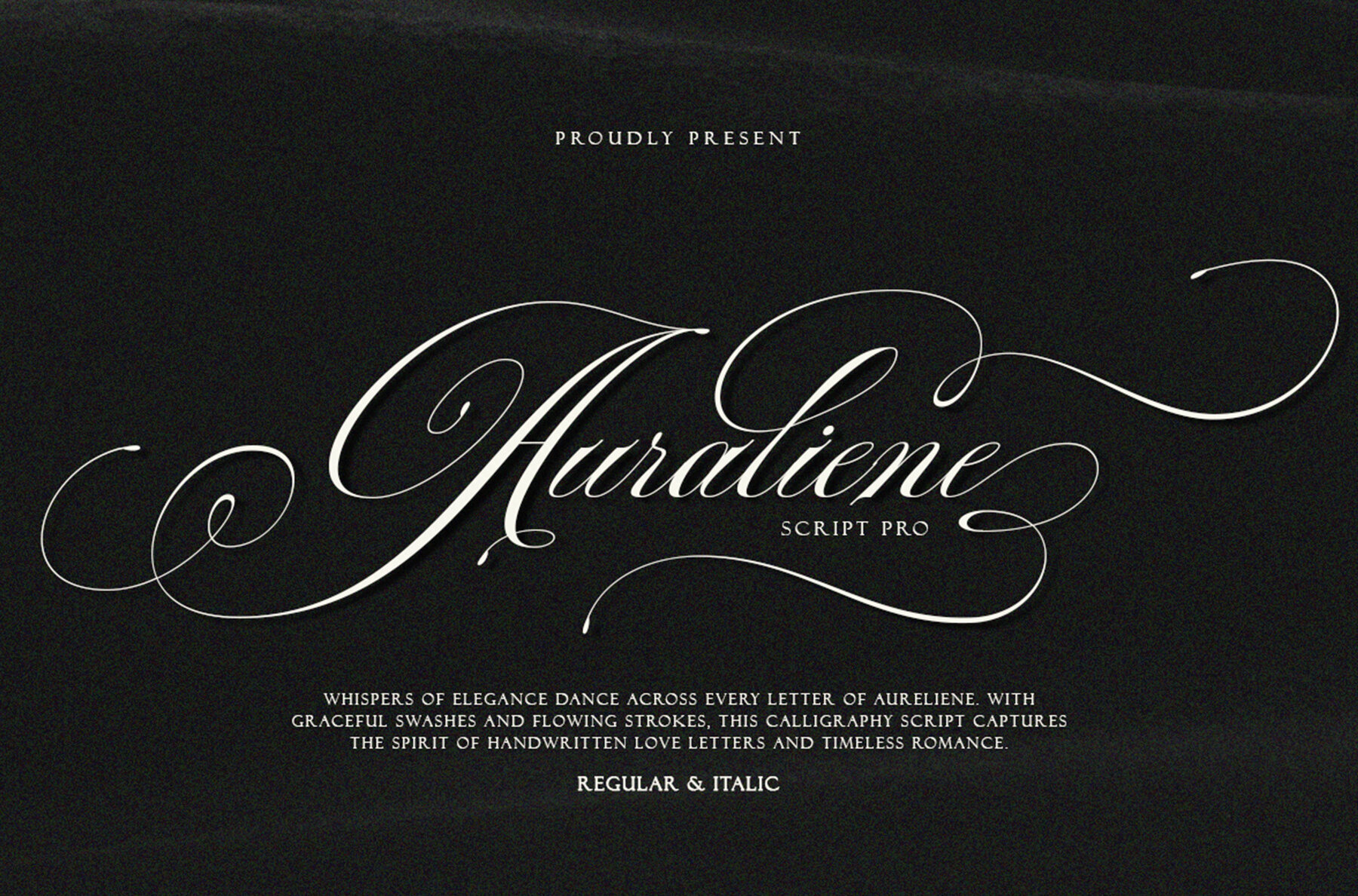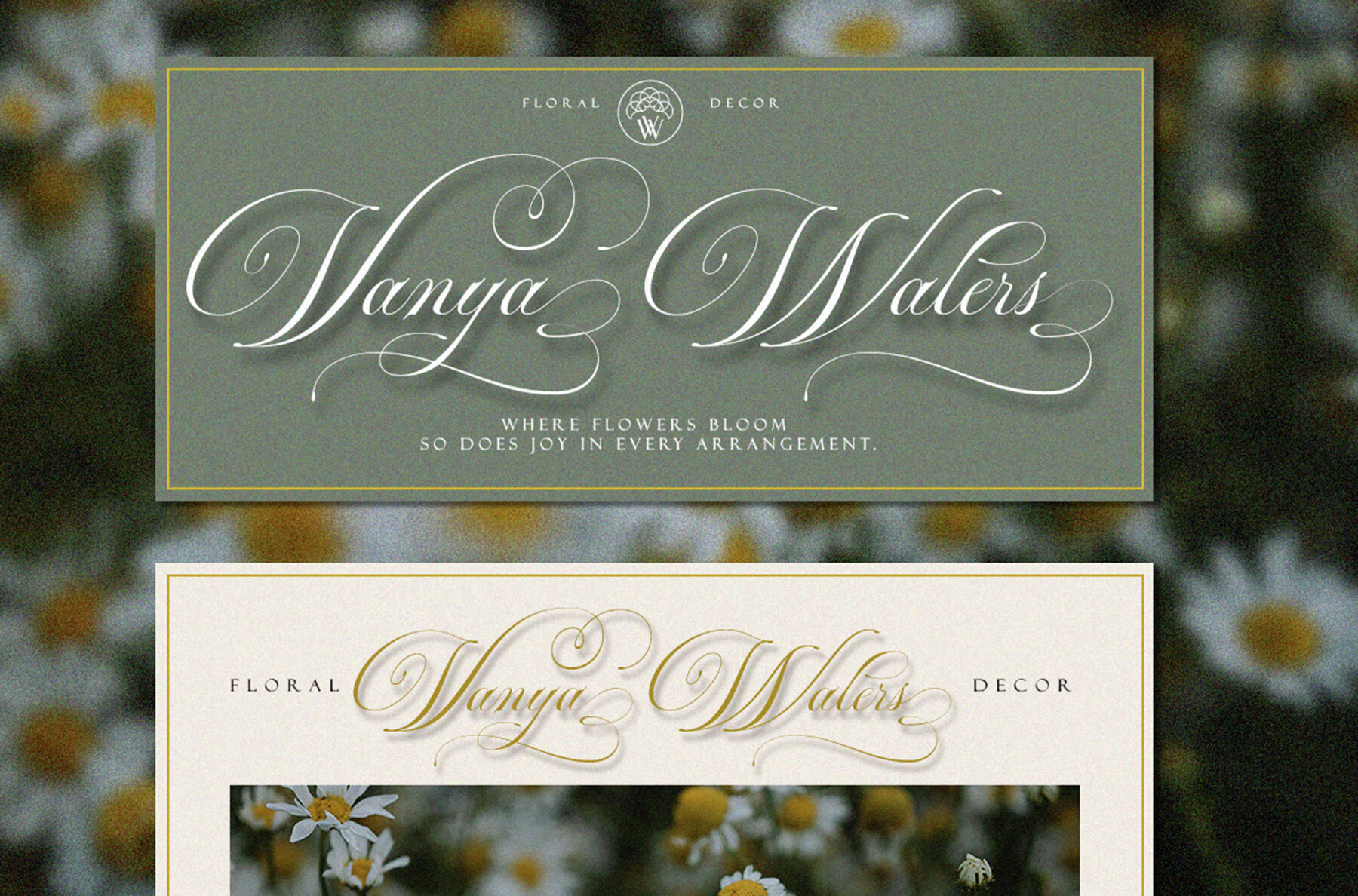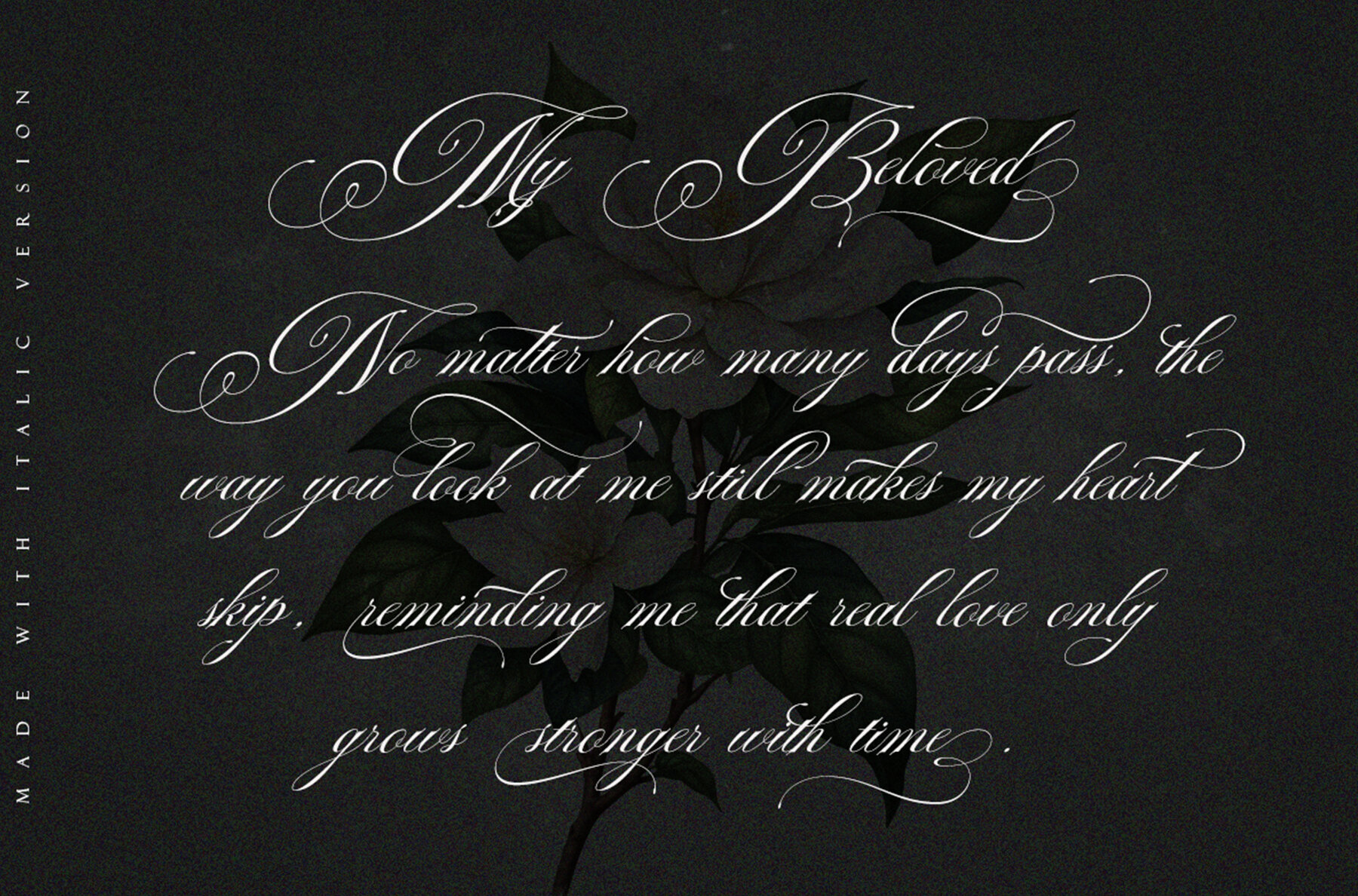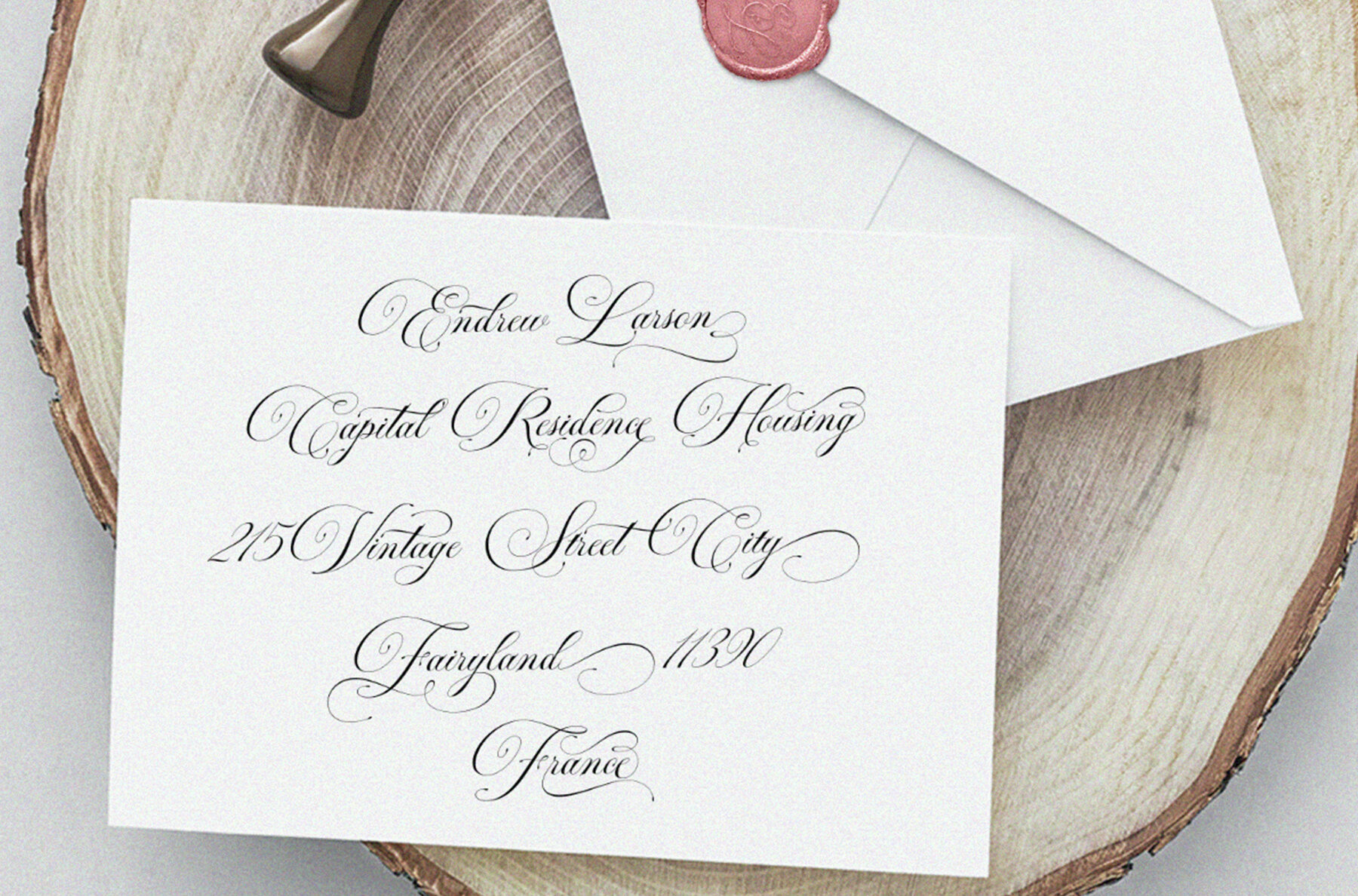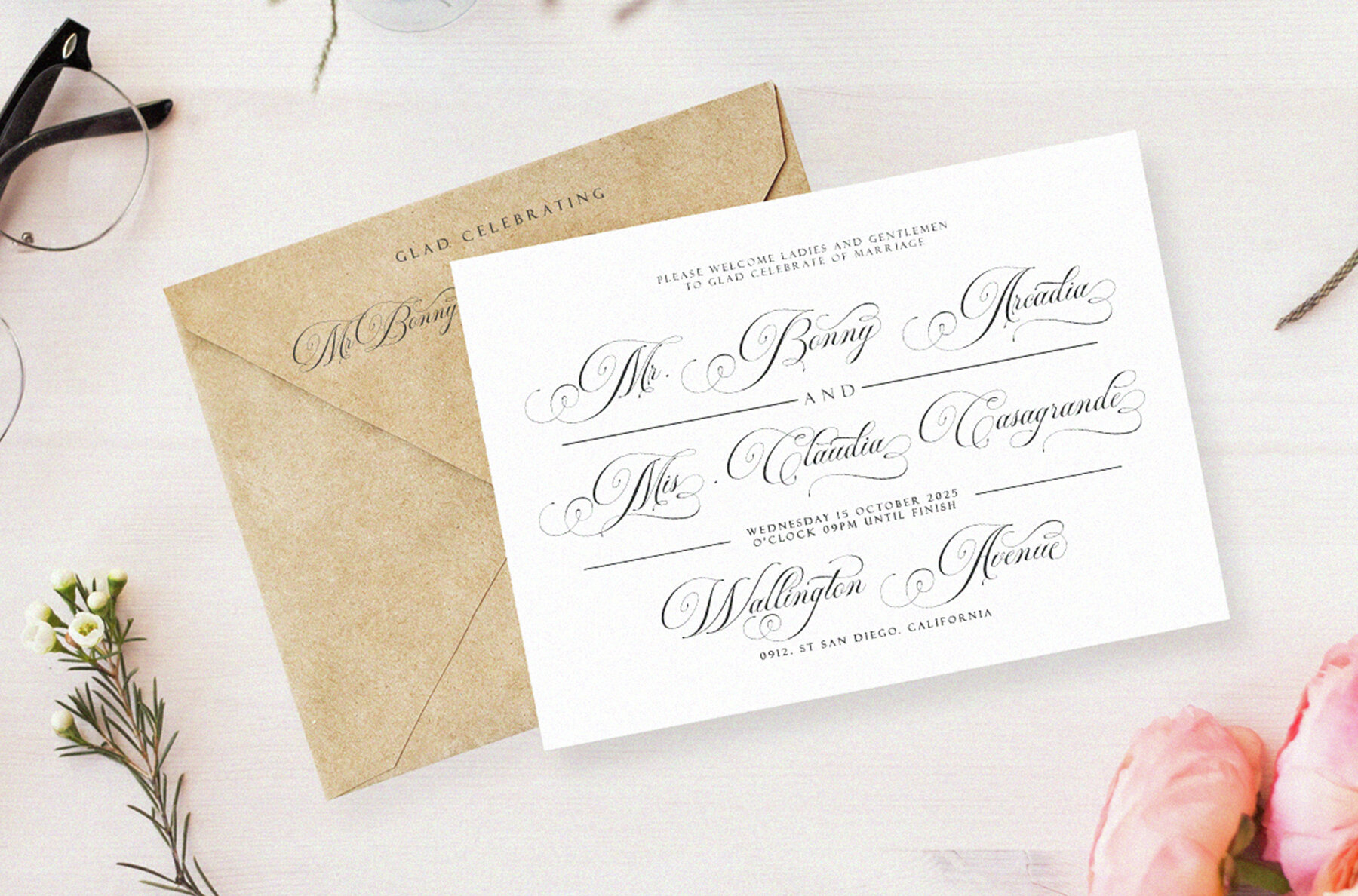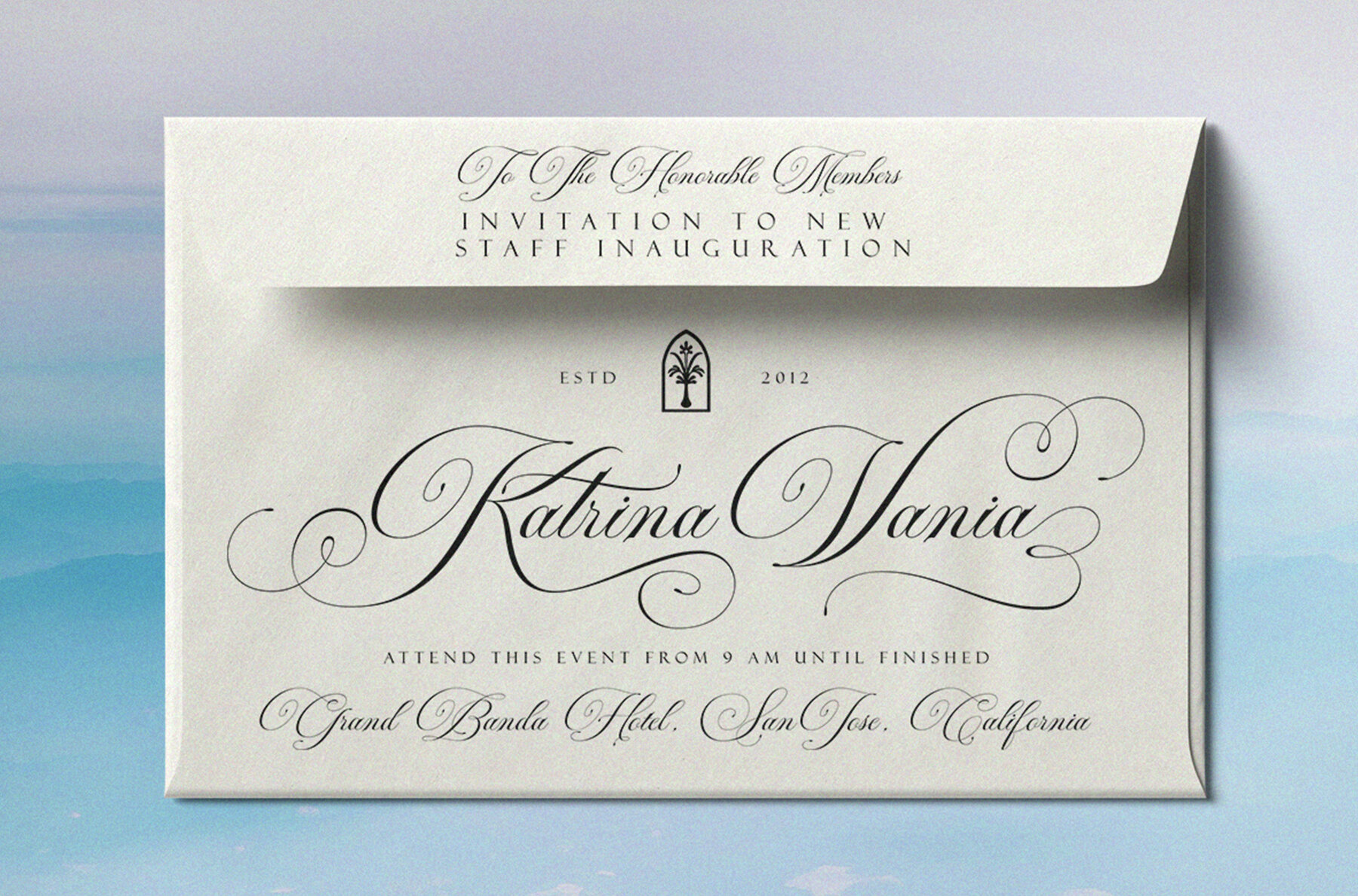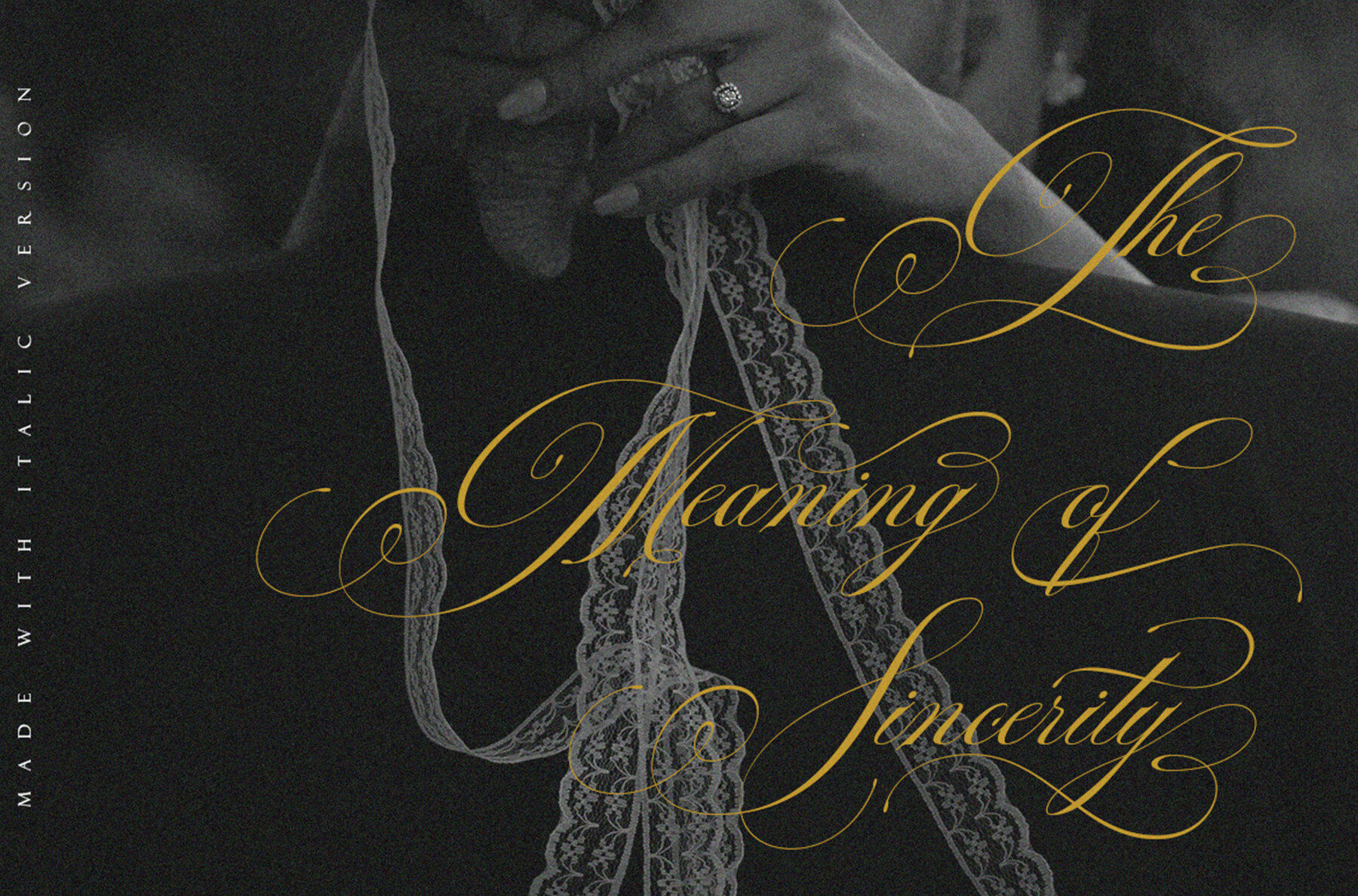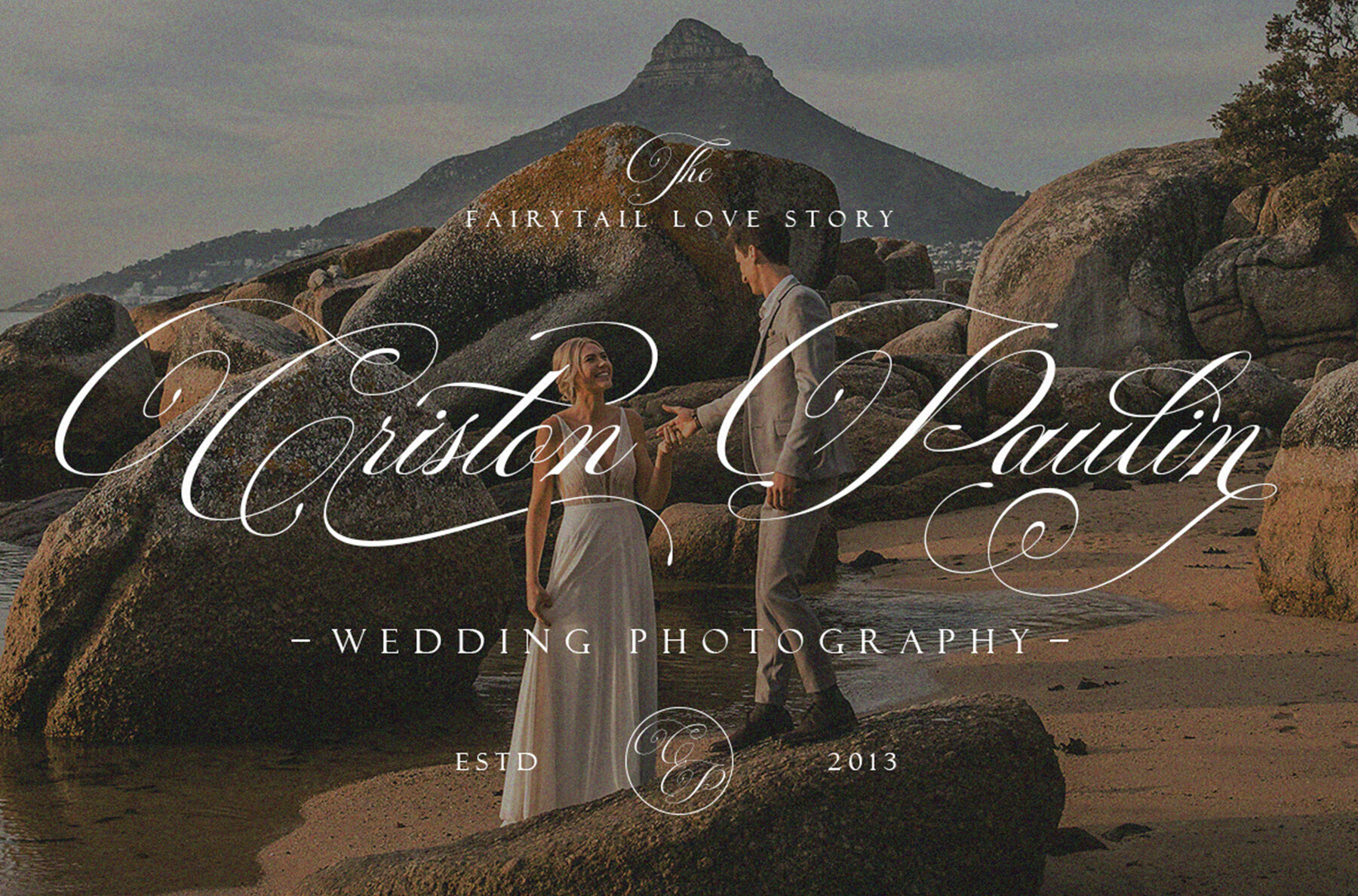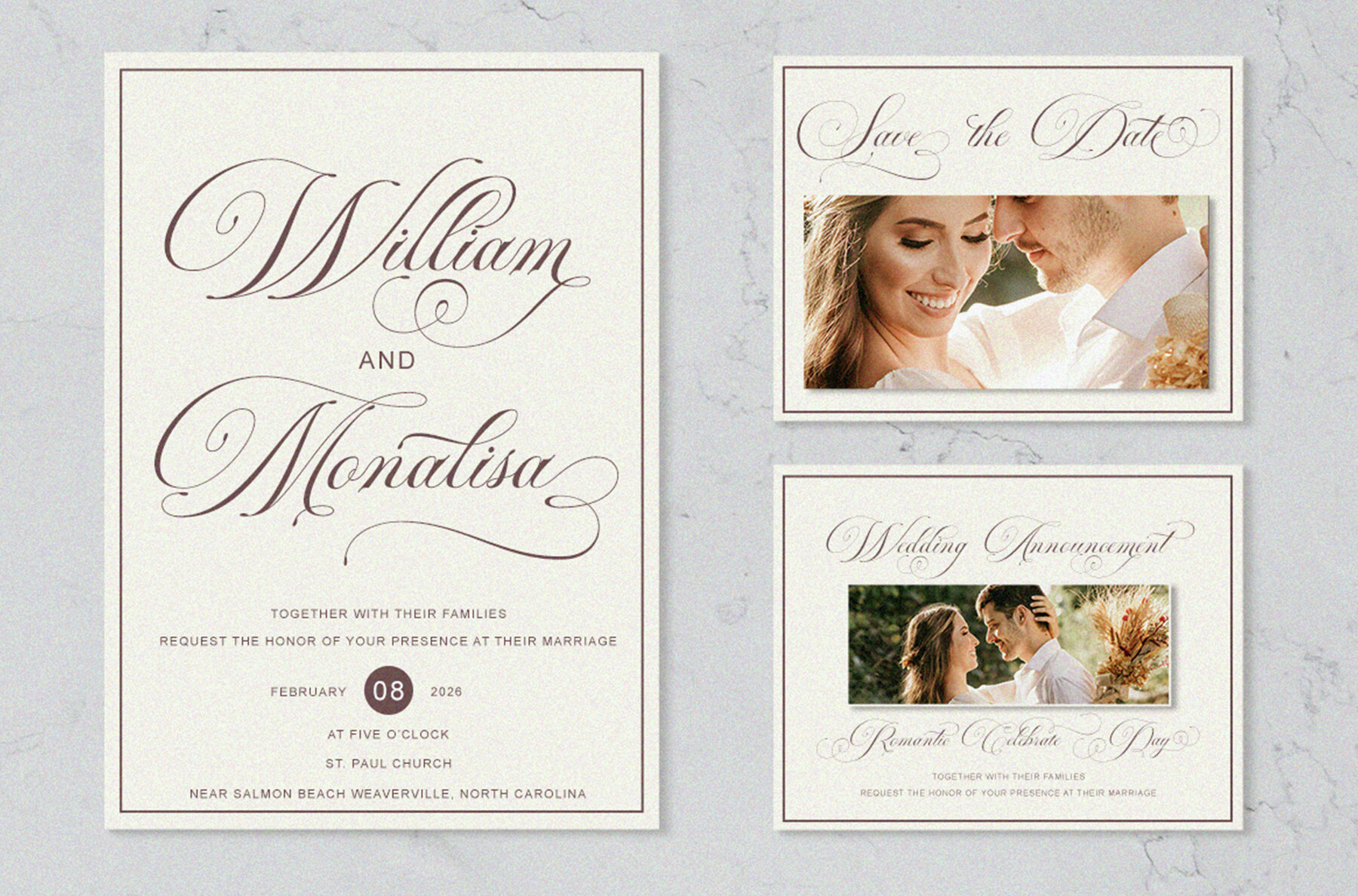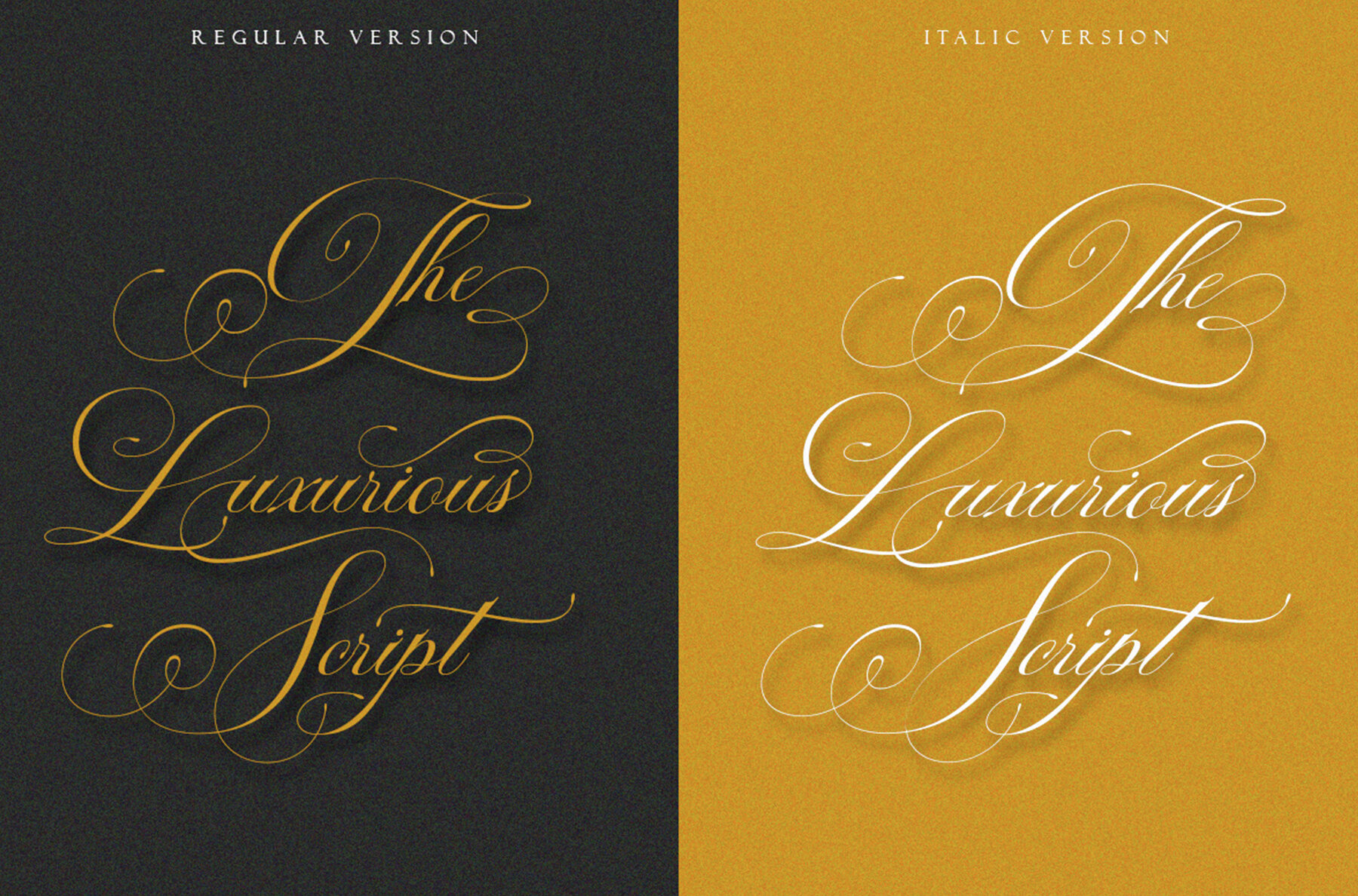
Auraliene Script Pro Font
Auraliene Pro integrates the beauty of classic decorative copper script with a sleek modern twist. Designed with intricate care, it exudes a stylish elegance that boasts smooth, clean lines. Its feminine, sensual, and straightforward nature makes it ideal for applications requiring readability and finesse, such as invitations, labels, restaurant menus, and more. The classic style of Auraliene Pro shines in formal and creative contexts alike, making it a perfect choice for logos, fashion, novels, magazines, and more.Auraliene Pro: Elegant Script Font With Classic Charm